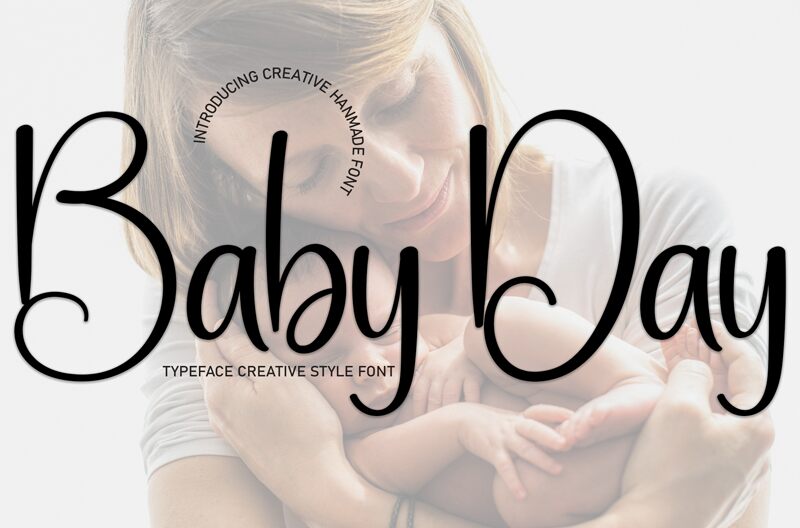
Baby Day
Baby Day is a captivating calligraphic font designed by Andi Moz. Its elegant, flowing strokes and graceful curves exude a sense of whimsy and youthfulness, making it an ideal choice for a wide range of design applications. From playful children's illustrations to refined wedding invitations, the versatility of "Baby Day" shines through, allowing it to seamlessly integrate into diverse creative projects.
The font's distinctive style, with its delicate ascenders and subtle ligatures, lends an air of effortless sophistication to any design. Its organic, handwritten-inspired aesthetic can breathe life into branding, social media content, or even personalized stationery, elevating the overall visual appeal and evoking a warm, inviting atmosphere.